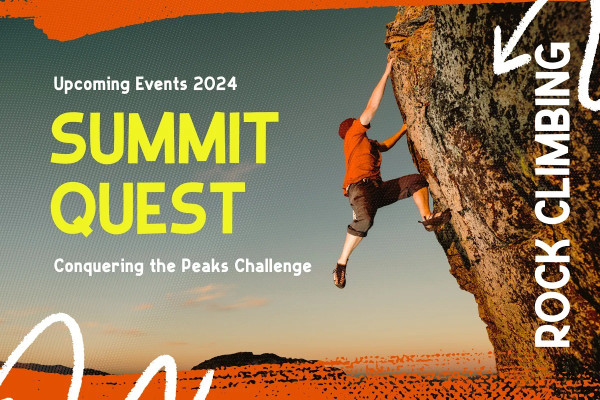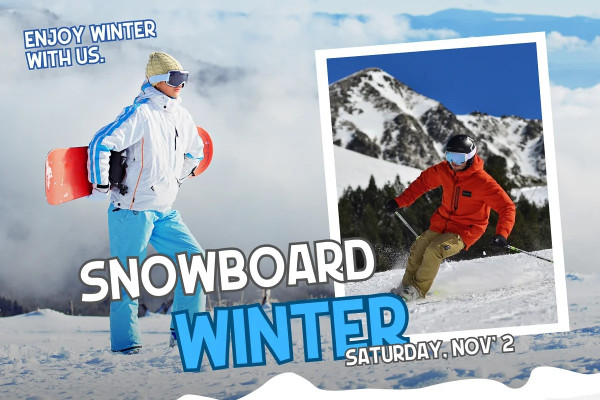
Adventrue Font
Adventrue Font is an adventurous font that captures the excitement of exploration and the unknown. With rugged letterforms and bold strokes, it adds a touch of curiosity to designs. Perfect for travel posters, branding, and outdoor-themed projects that inspire wanderlust. Embrace the explorer’s spirit with “Adventrue” and infuse your designs with adventure.